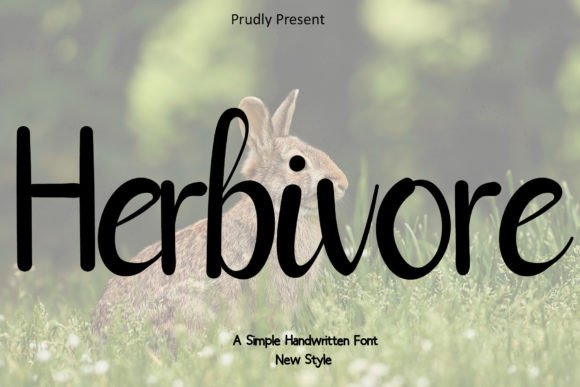
Herbivore: A Script Font for Editorial Elegance
The Grace of a Script Typeface in Editorial Design
When it comes to editorial design, the right font can make all the difference. Herbivore is a tastefully elegant calligraphic script font that brings a refined touch to your text. With its graceful strokes and flowing curves, Herbivore offers a visual sophistication that complements both traditional and modern editorial layouts.
This script font is not just about aesthetics—it’s about creating a connection between the reader and the content. Its fluid lines and organic shapes evoke a sense of warmth and approachability, making it ideal for content that needs to feel personal yet professional.
Where Herbivore Shines in Editorial Work
Herbivore is versatile enough to fit into various editorial applications. From blog headers to magazine covers, this font adds a distinctive flair that elevates the overall design. It works particularly well in contexts where you want to highlight key elements such as titles, pull quotes, or section headings.
In a lifestyle blog, for example, Herbivore can be used to create eye-catching headlines that draw readers in. Similarly, in a digital magazine, it can serve as an accent font that enhances the visual hierarchy without overwhelming the body text.
For ebook creators and newsletter writers, Herbivore provides a stylish option for titles and chapter openers. Its elegance makes it a great choice for branding materials, such as printable guides or worksheets, where a touch of sophistication can help reinforce brand identity.
Visual Hierarchy and Reader Engagement
One of the most important aspects of any font is how it supports visual hierarchy. Herbivore excels in this area by offering a clear distinction between different text levels. Its bold strokes and varied line weights allow designers to create a natural flow from main headings to subheadings and even to pull quotes.
When used effectively, Herbivore can guide the reader’s attention through the content. For instance, a wedding guide might use Herbivore for the cover text to set a romantic tone, while the body copy could be paired with a more readable serif or sans serif font to ensure clarity and ease of reading.
Its script nature also lends itself well to quote graphics and testimonials. Whether it's a quote from a featured author or a client testimonial, Herbivore adds a touch of elegance that enhances the message without overshadowing it.
Readability and Practical Considerations
While Herbivore is undeniably beautiful, it’s important to consider its readability in different formats. As a script font, it may not be the best choice for long blocks of text, but it performs admirably when used in moderation. In PDF exports, web layouts, and print, Herbivore maintains its legibility, especially when paired with appropriate supporting fonts.
For screen reading and mobile layouts, it’s recommended to use Herbivore sparingly and ensure that it doesn’t interfere with the overall readability of the content. When used as a display font, it can enhance the visual appeal without compromising the user experience.
Font Pairing for Editorial Success
Pairing Herbivore with complementary fonts can significantly enhance the design of your editorial work. For instance, pairing it with a clean sans serif font like Helvetica or Montserrat can create a balanced look that combines elegance with readability.
When designing a digital magazine or a printable planner, consider using Herbivore for headings and accents while keeping the body text in a more neutral, easy-to-read font. This contrast helps maintain focus on the content while still allowing the design to stand out.
For social media graphics and web designs, Herbivore can be used alongside a modern sans serif font to create a dynamic and visually engaging layout. The combination ensures that the content remains accessible while maintaining a stylish aesthetic.
Commercial Licensing and Brand Identity
Whether you're designing a course creator's newsletter or a creative font-based branding package, Herbivore offers a unique opportunity to elevate your editorial work with a touch of sophistication and style.